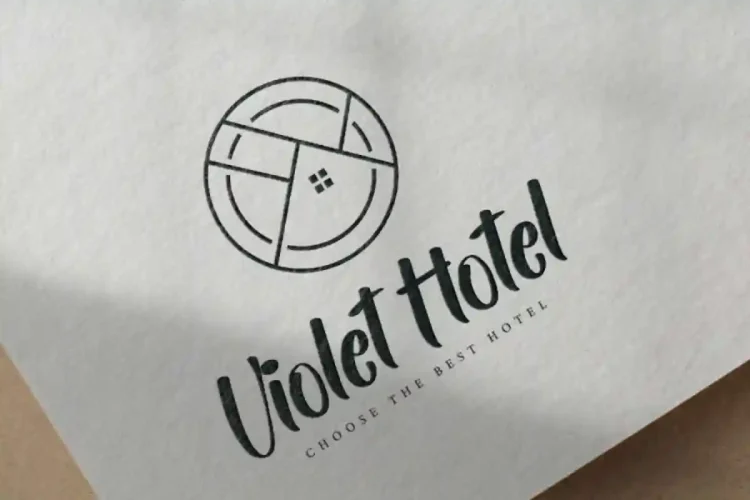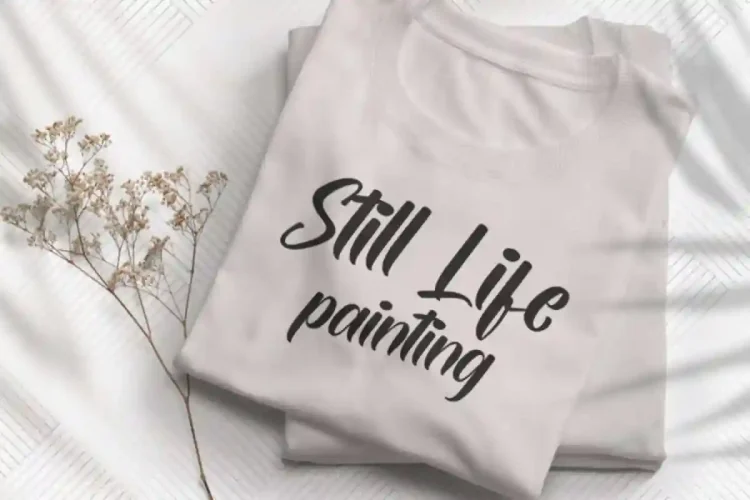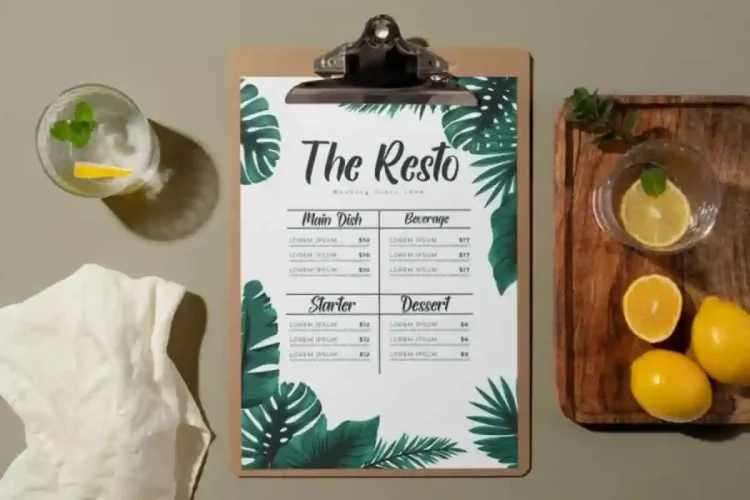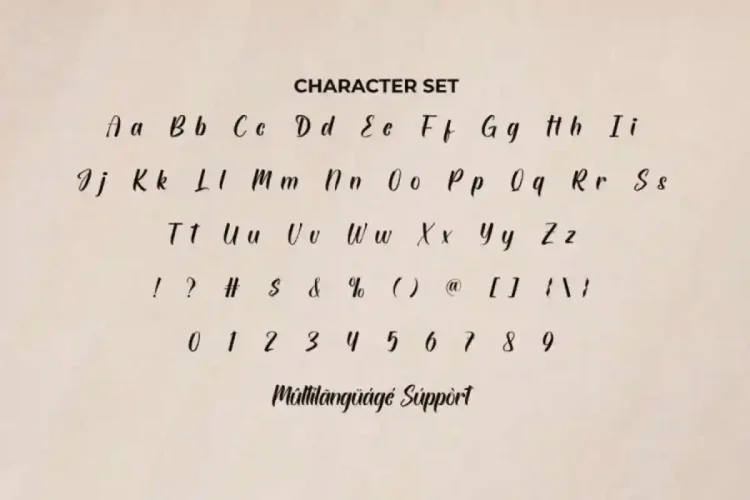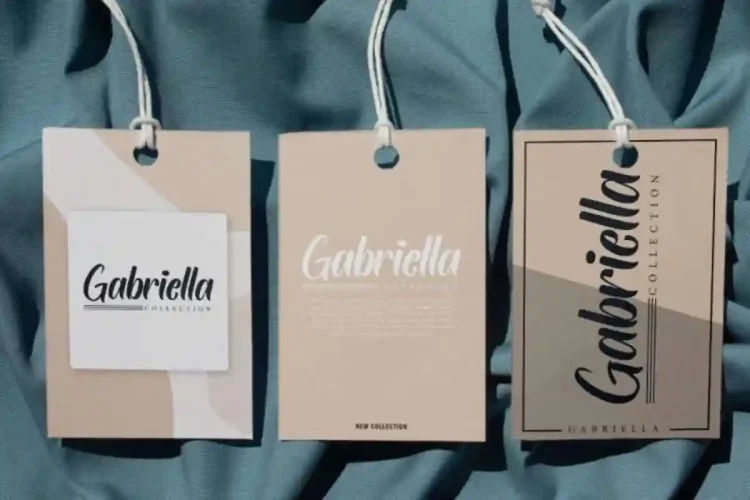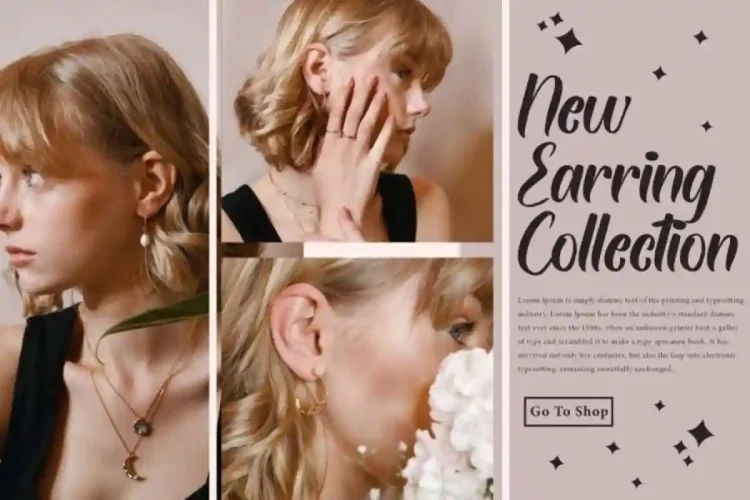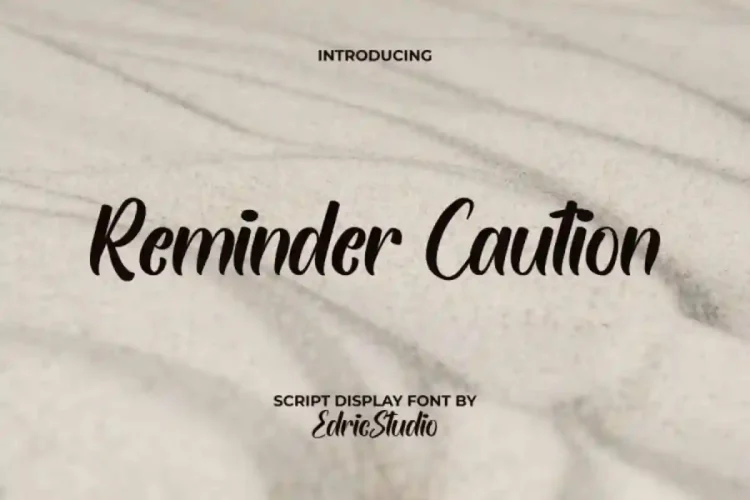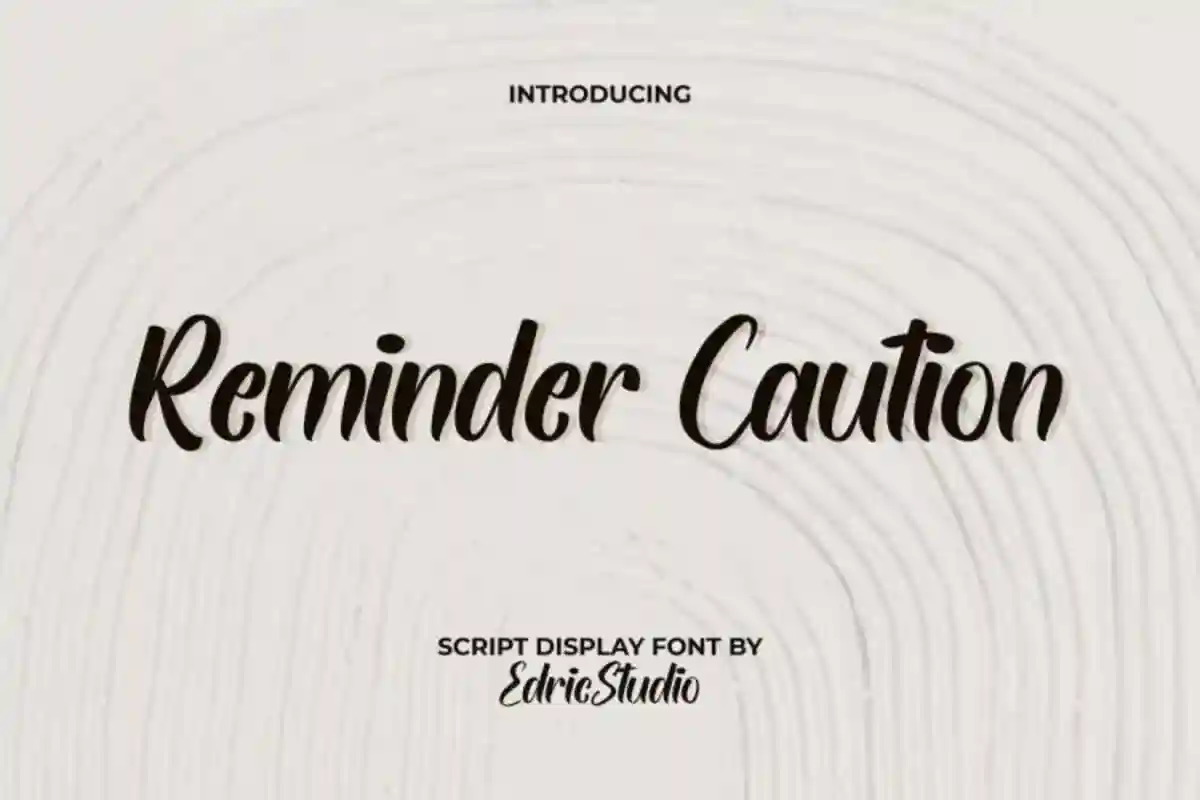
Reminder Caution Font is a casual calligraphy script font, created by EdricStudio. Perfect for designers, entrepreneurs, and creatives, Reminder Caution Font is your go-to choice for projects that need a stylish, modern script touch.
Reminder Caution Display Script Font comes with a full set of Uppercase and Lowercase Basic Characters, Number, a large range of Punctuation and Symbol. It has a stunning characters set, perfectly managed with well spaced and kerning. Reminder Caution Font will be great for any projects (with extended license) including: brand logo, labels, menu, mockup design, price tag, screen printing, stationery, title, website, etc.
Reminder Caution Font is a playful typeface with unique decoration in each character. Ready to use both on Windows machine or Mac with simple installations. It’s tested to work well in the Adobe Apps (Illustrator, Adobe InDesign, Adobe Photoshop) even work on Microsoft Word. PUA Encode Characters means you can access all the glyphs and other characters easily – Fully accessible without additional design software.